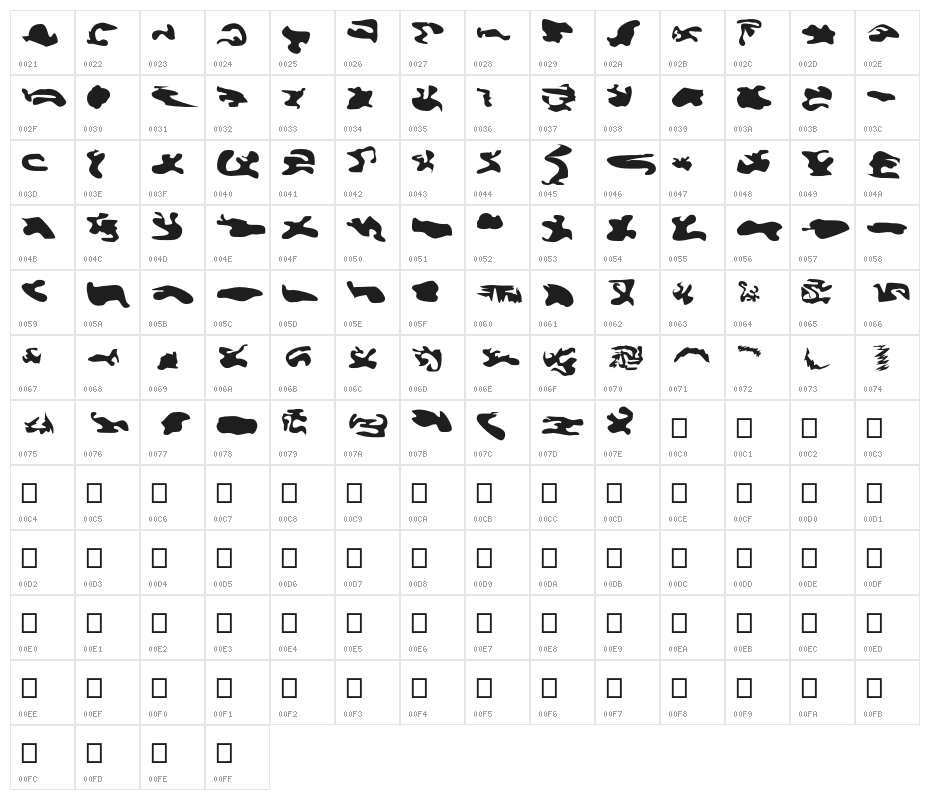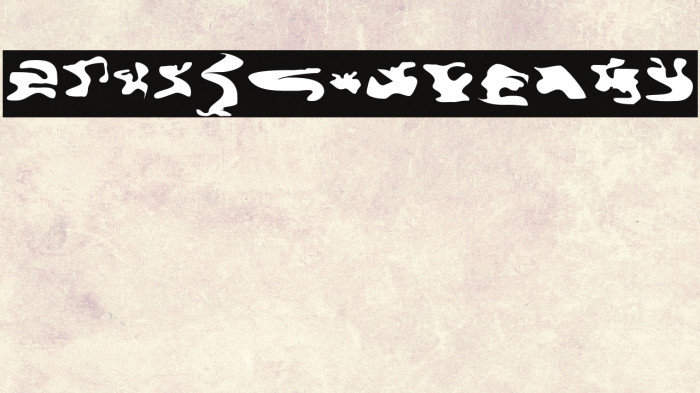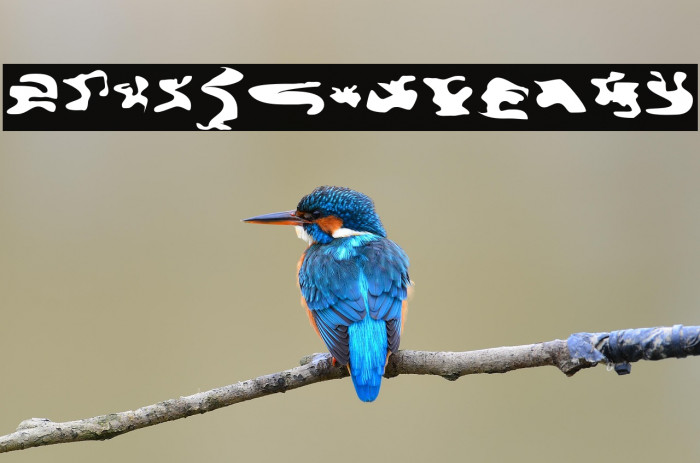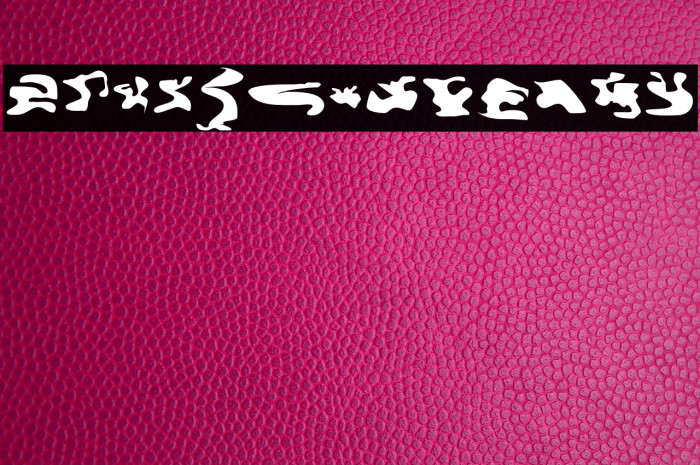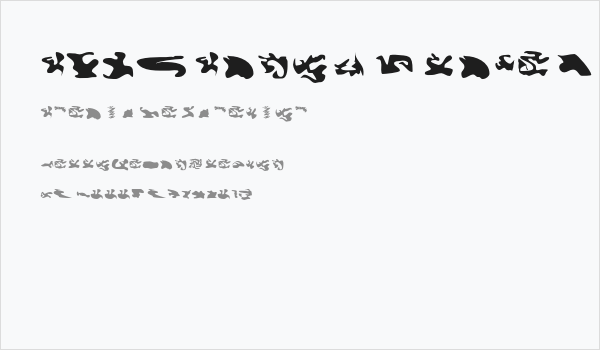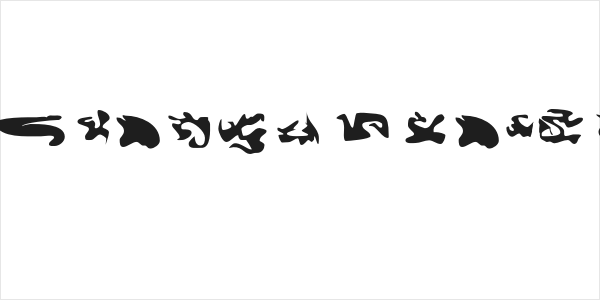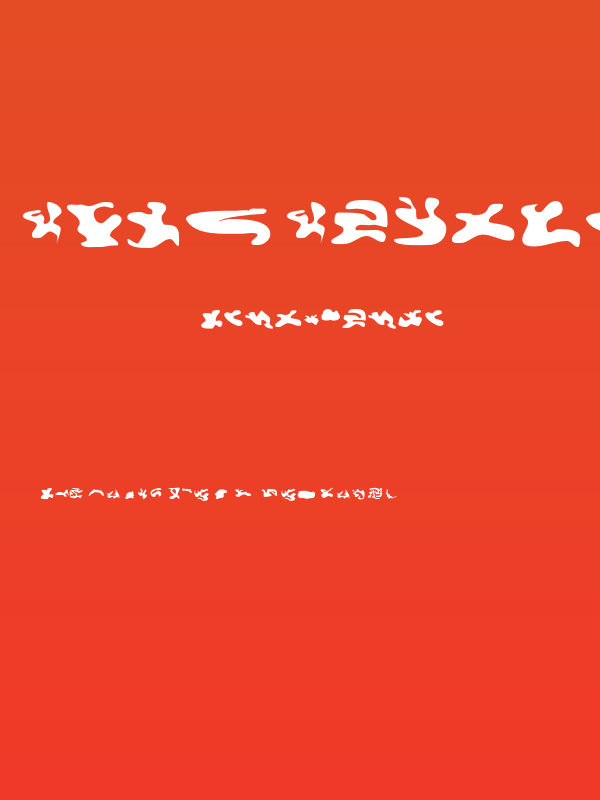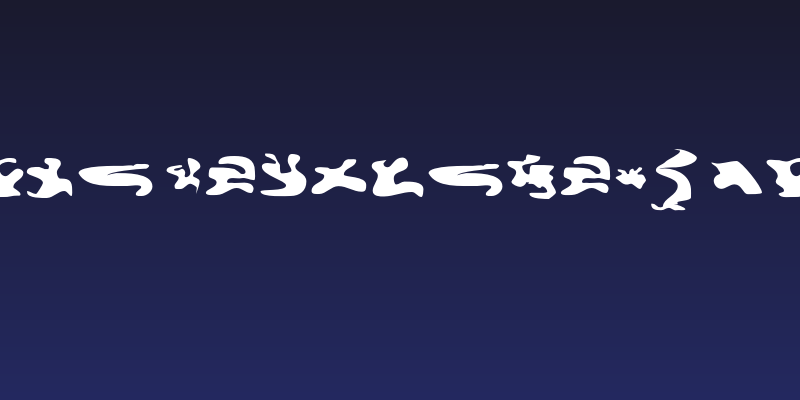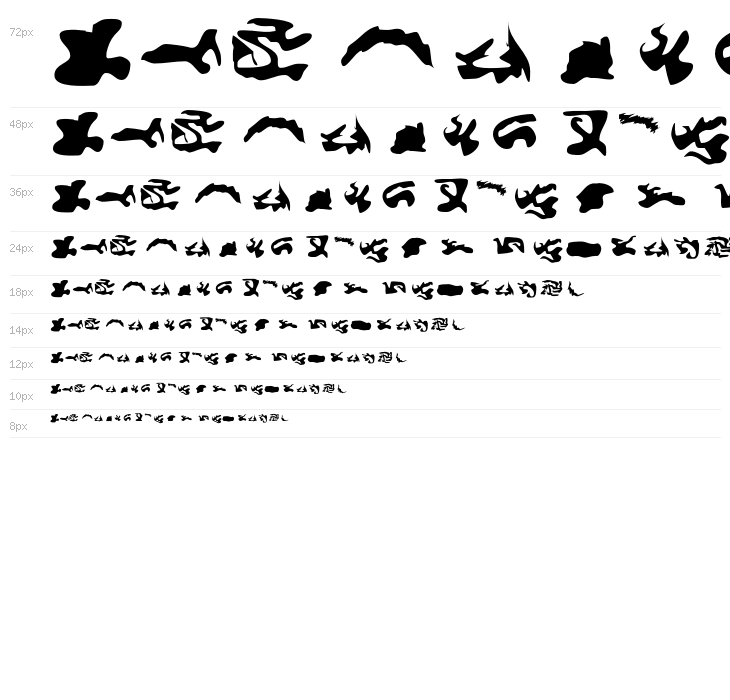
CISF Camouflage Kit Font
CISF Camouflage Kit Description
This font features an abstract, highly stylized design that resembles camouflage patterns. The characters are bold and irregular, with each letter and symbol appearing as a unique shape. The font lacks uniformity, with varying thickness and unpredictable curves, giving it an organic and artistic feel. It is not easily readable due to its unconventional forms, making it more suitable for decorative purposes rather than body text. The font's distinctiveness lies in its ability to mimic natural, flowing shapes, reminiscent of abstract art or nature-inspired designs.
| Use Case | Logos, Posters, Artistic Designs |
| Proposed Projects | Ideal for artistic projects, abstract designs, unique branding, and creative posters. |